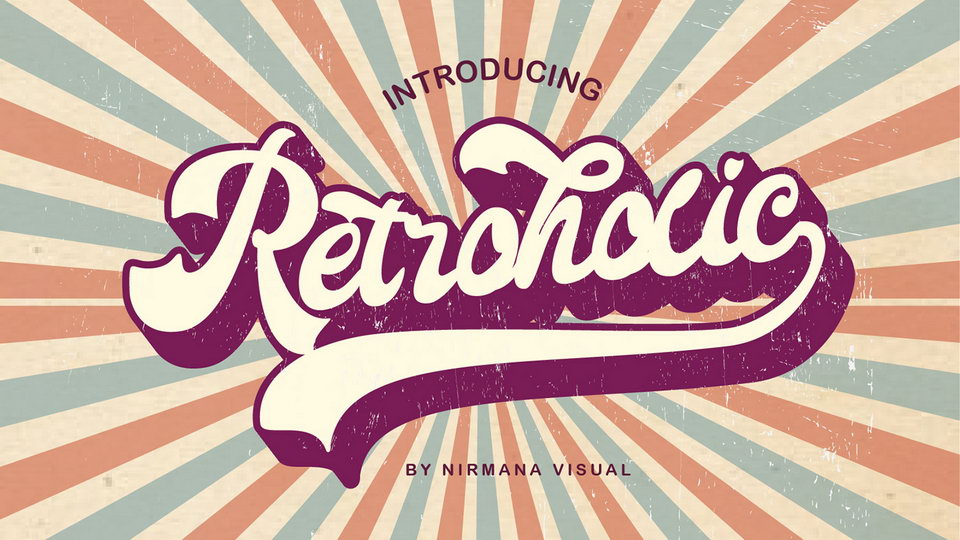
Download Retroholic font, a vintage hand lettered script, inspired by era of the disco in 70s -80’s and designed to work as perfect companions or simply as strong standalone typefaces.